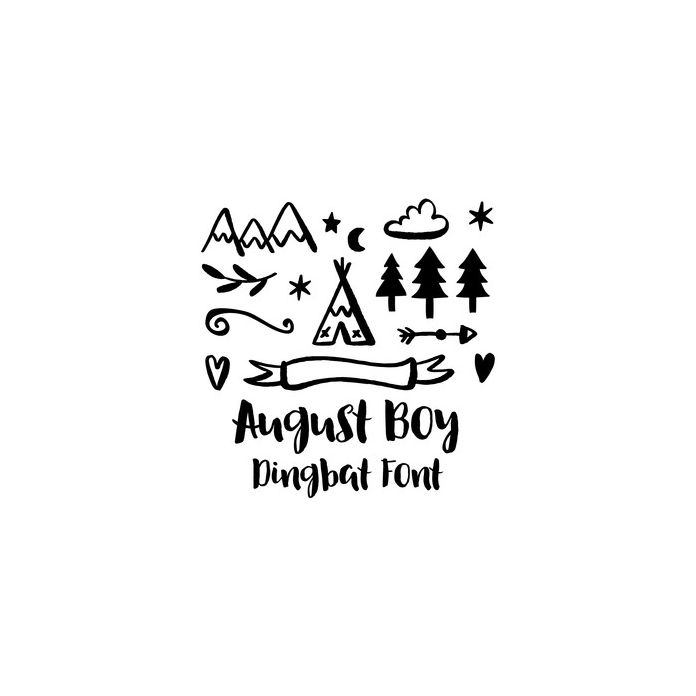
August Boy Dingbat includes 62 shapes which you can type out using the characters a-z, A-Z and 0-9.
There are cute boys shapes included like, teepee, camping, boho, arrows, feathers, trees, stars, leaves, hearts